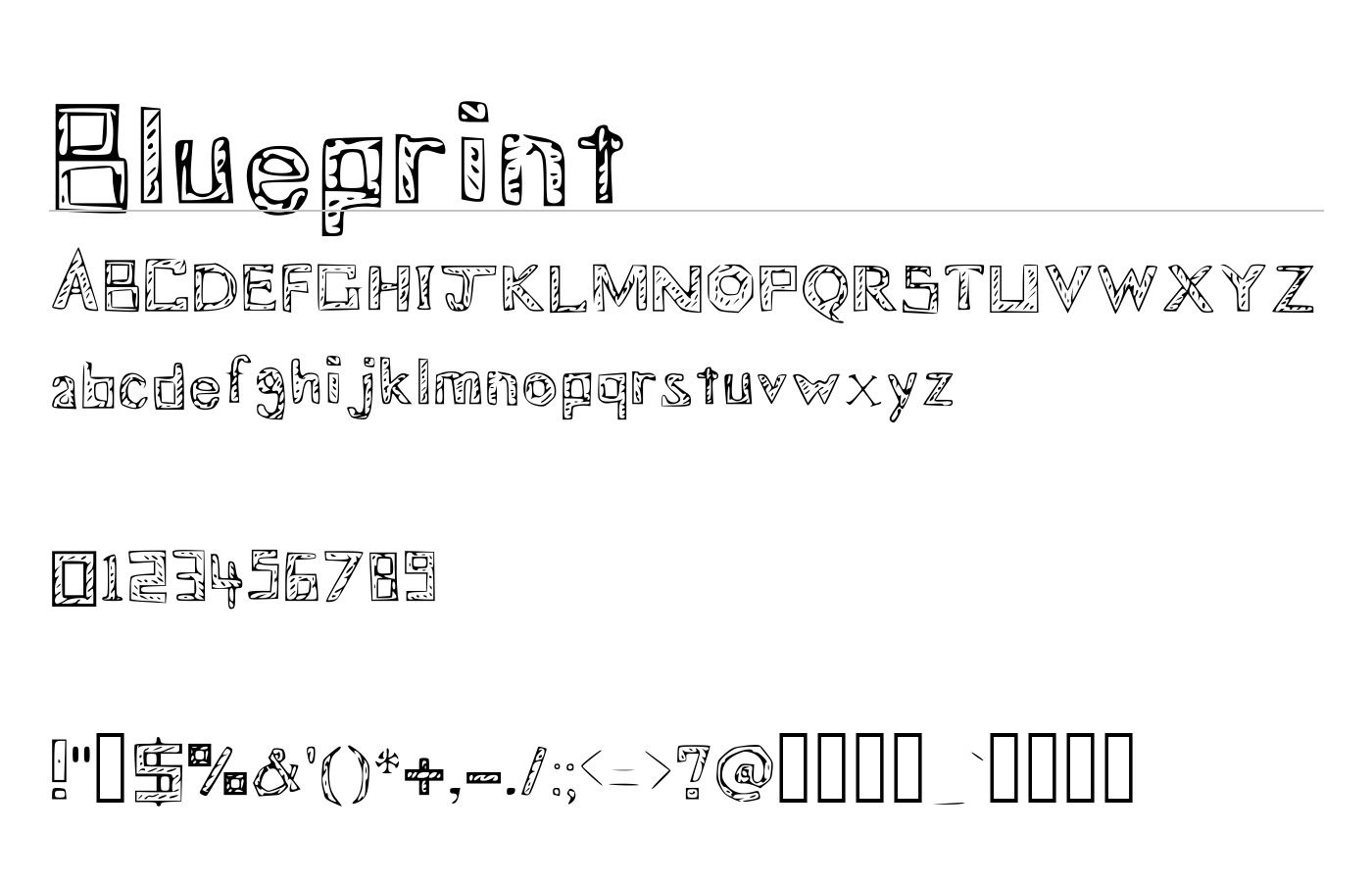
Blueprint Font is a playful and creative sans serif typeface that mimics the look of hand-drawn architectural plans with its sketchy, textured strokes and irregular lines. It features a casual, artistic feel with a mix of uppercase and lowercase letters that appear whimsical yet structured, making it perfect for design projects, posters, or branding that want to evoke a crafty, imaginative vibe. Its unique style works well for headlines or display text rather than body copy, adding personality and charm to creative and informal contexts.
Blueprint Font
About Blueprint Font